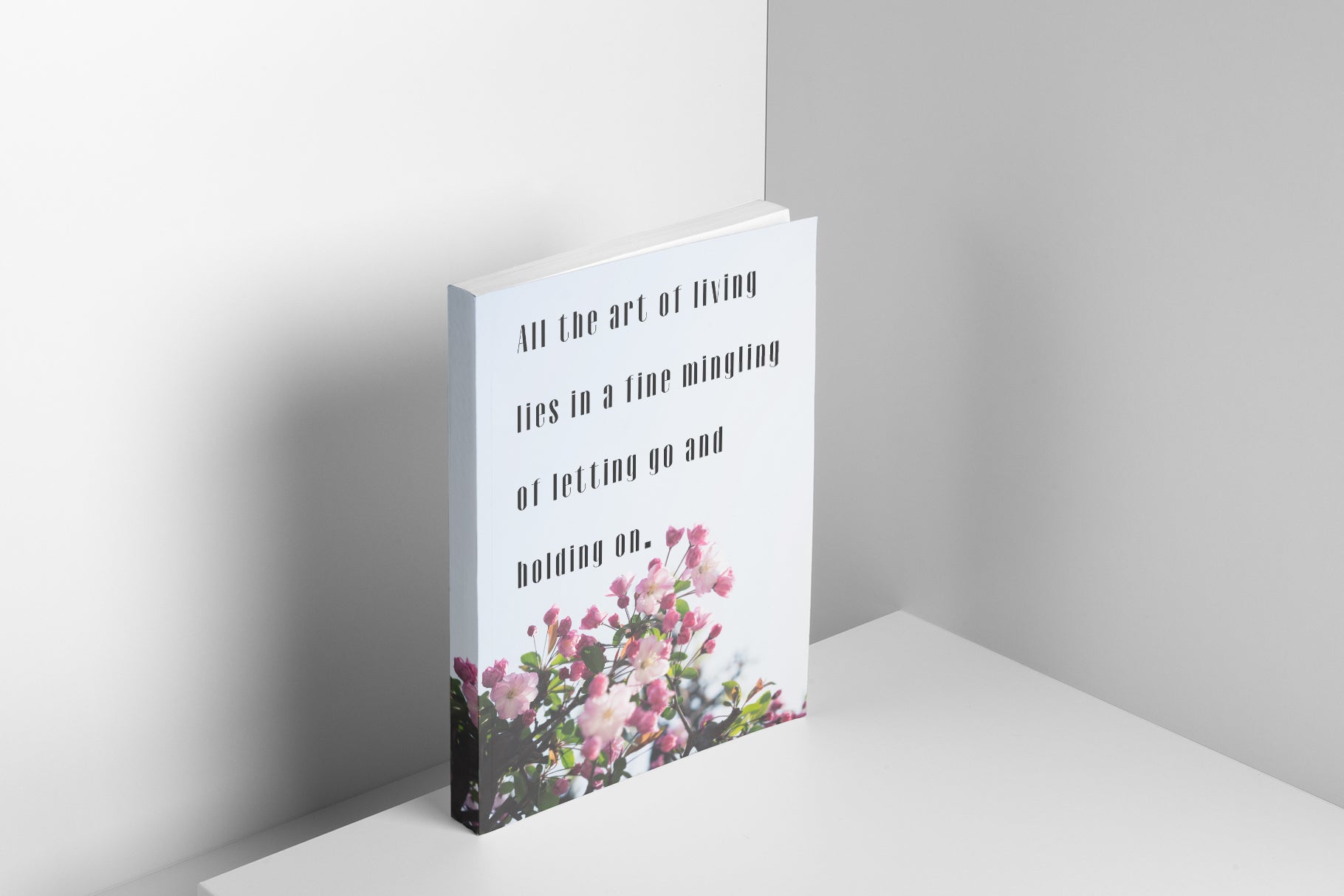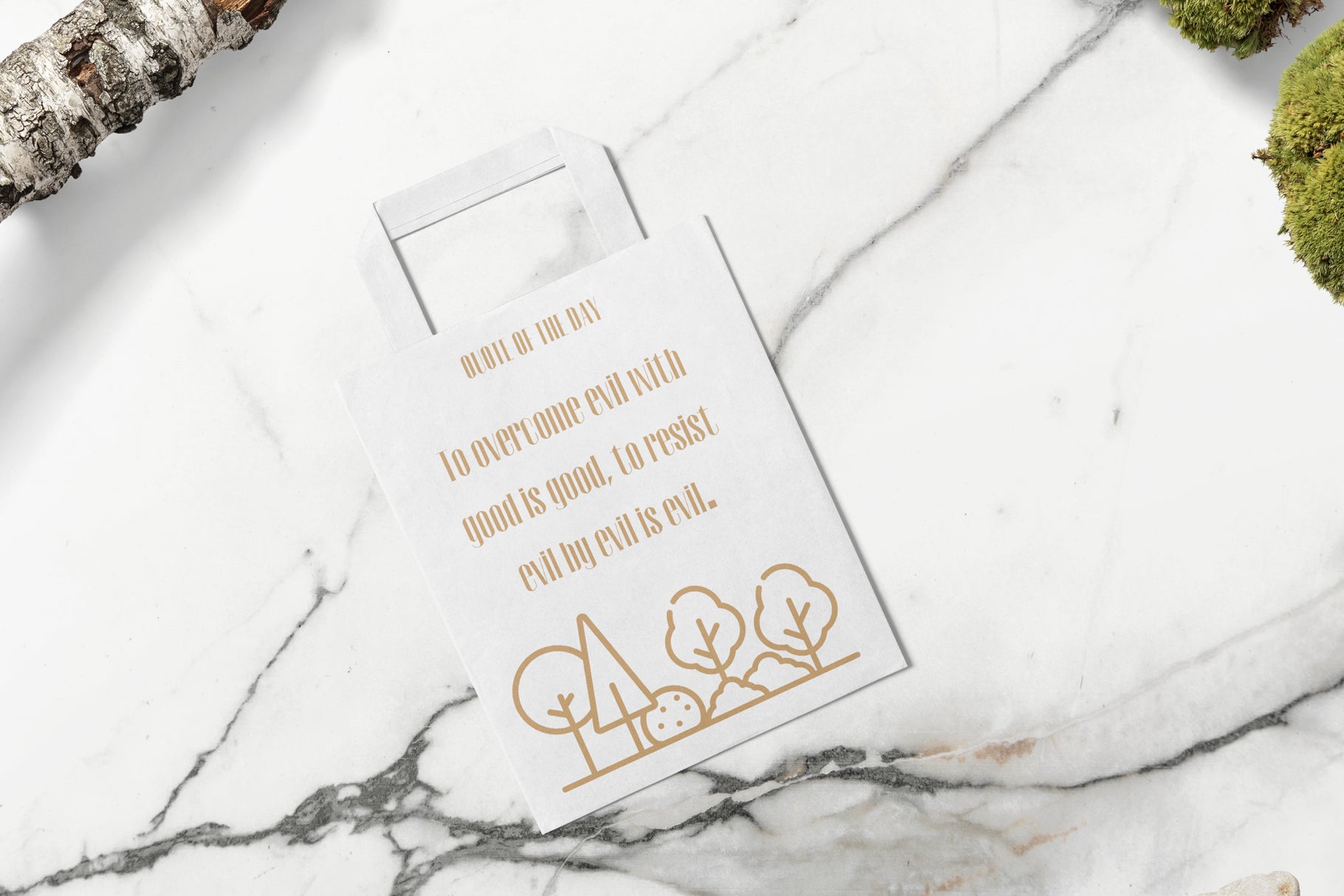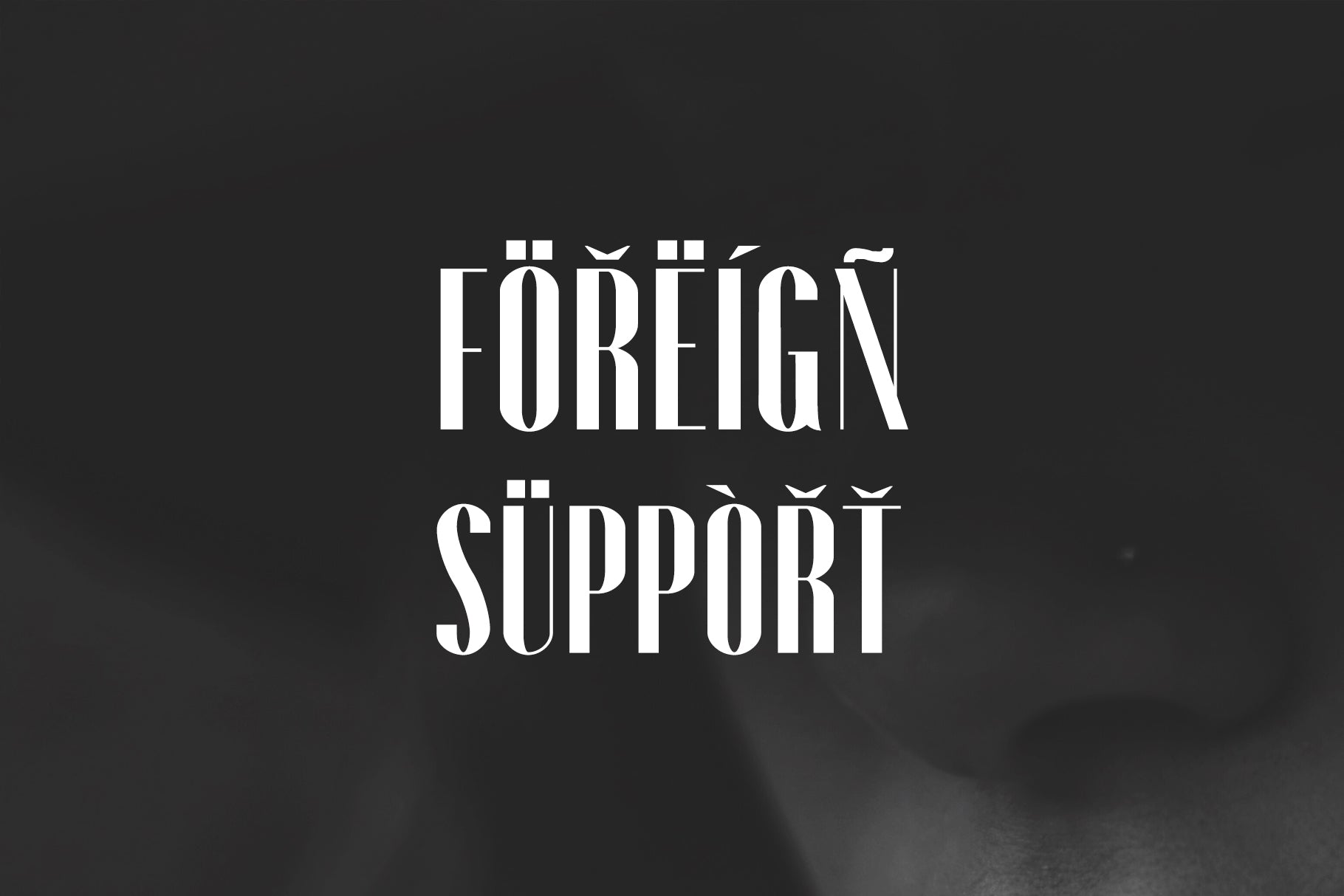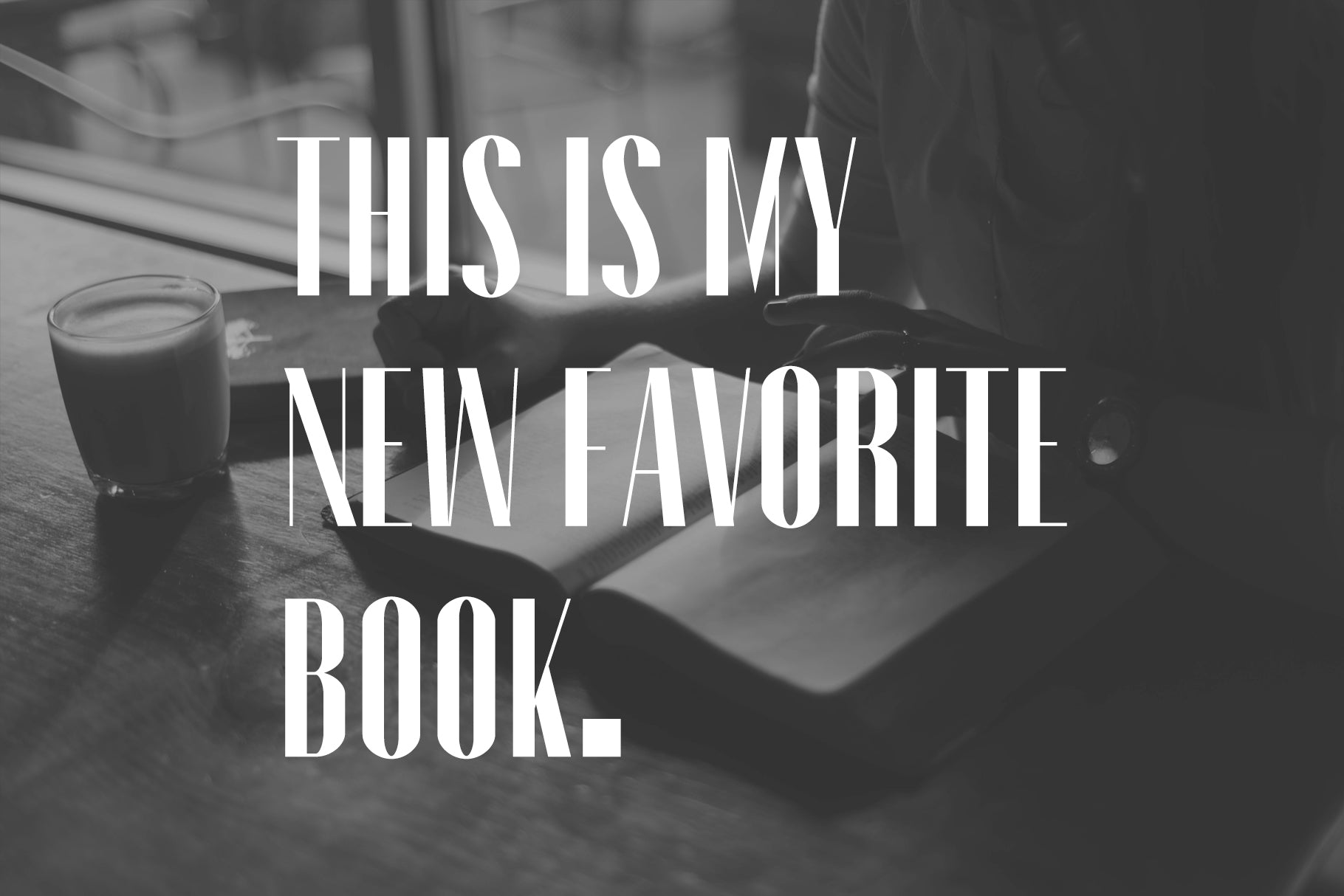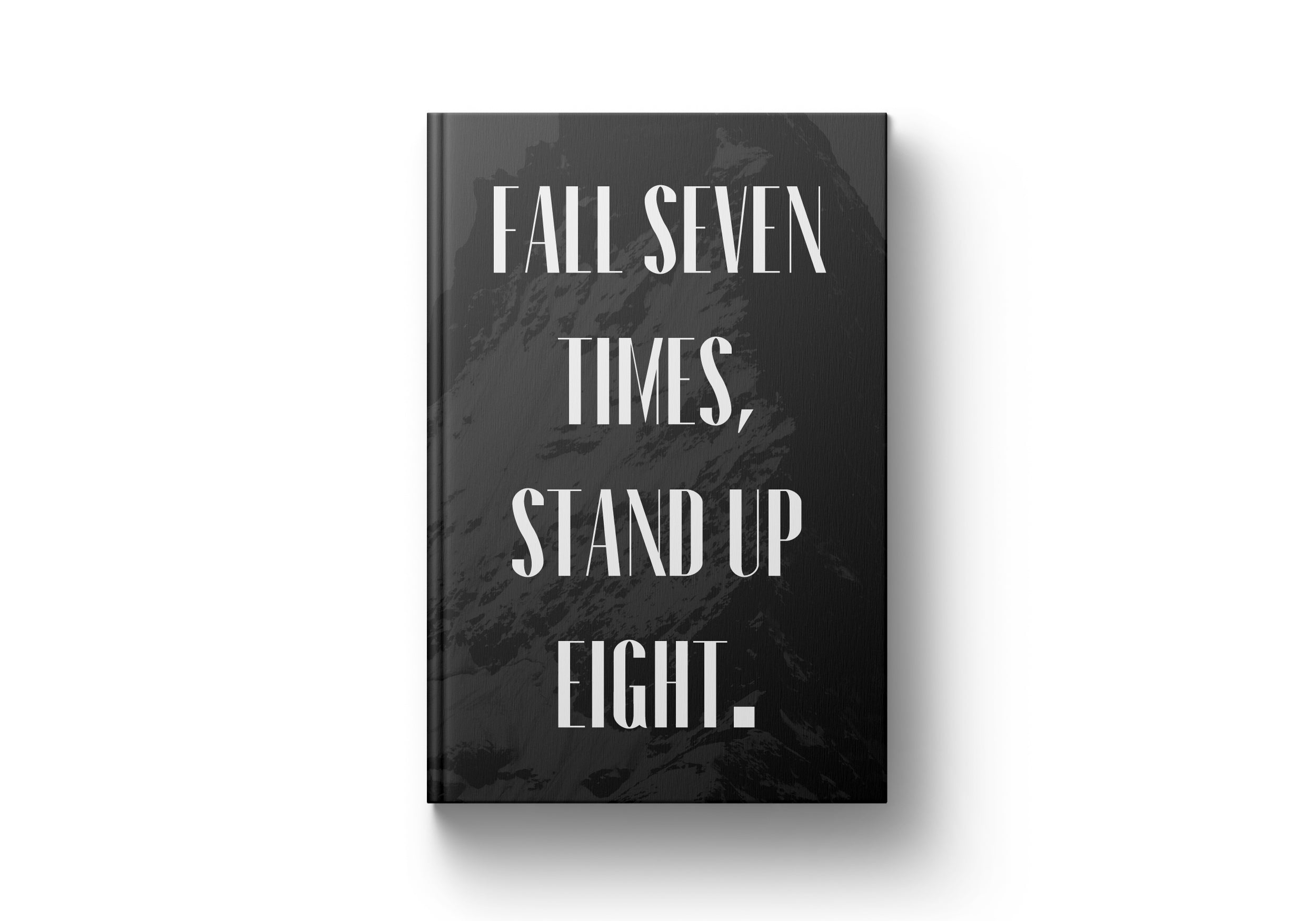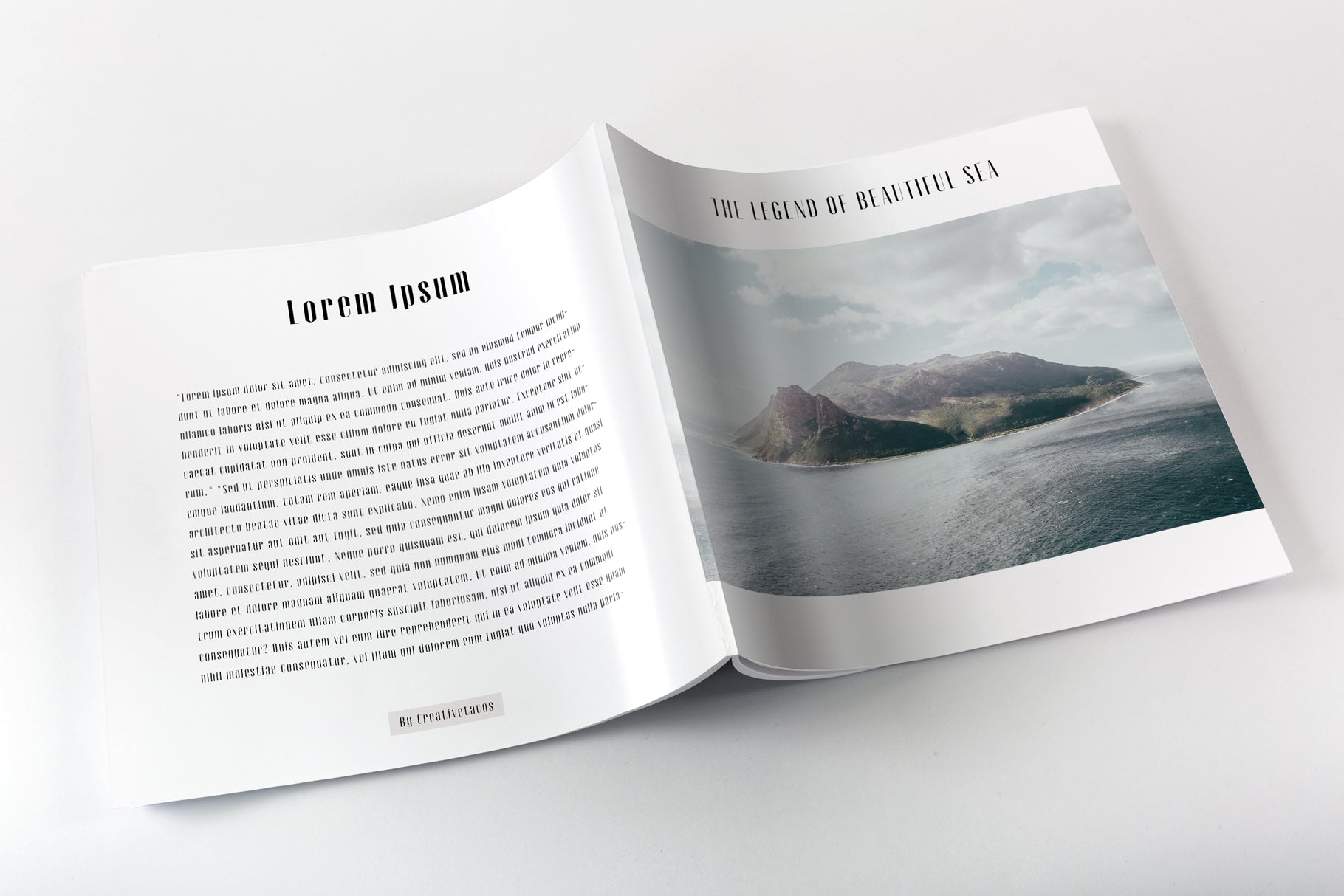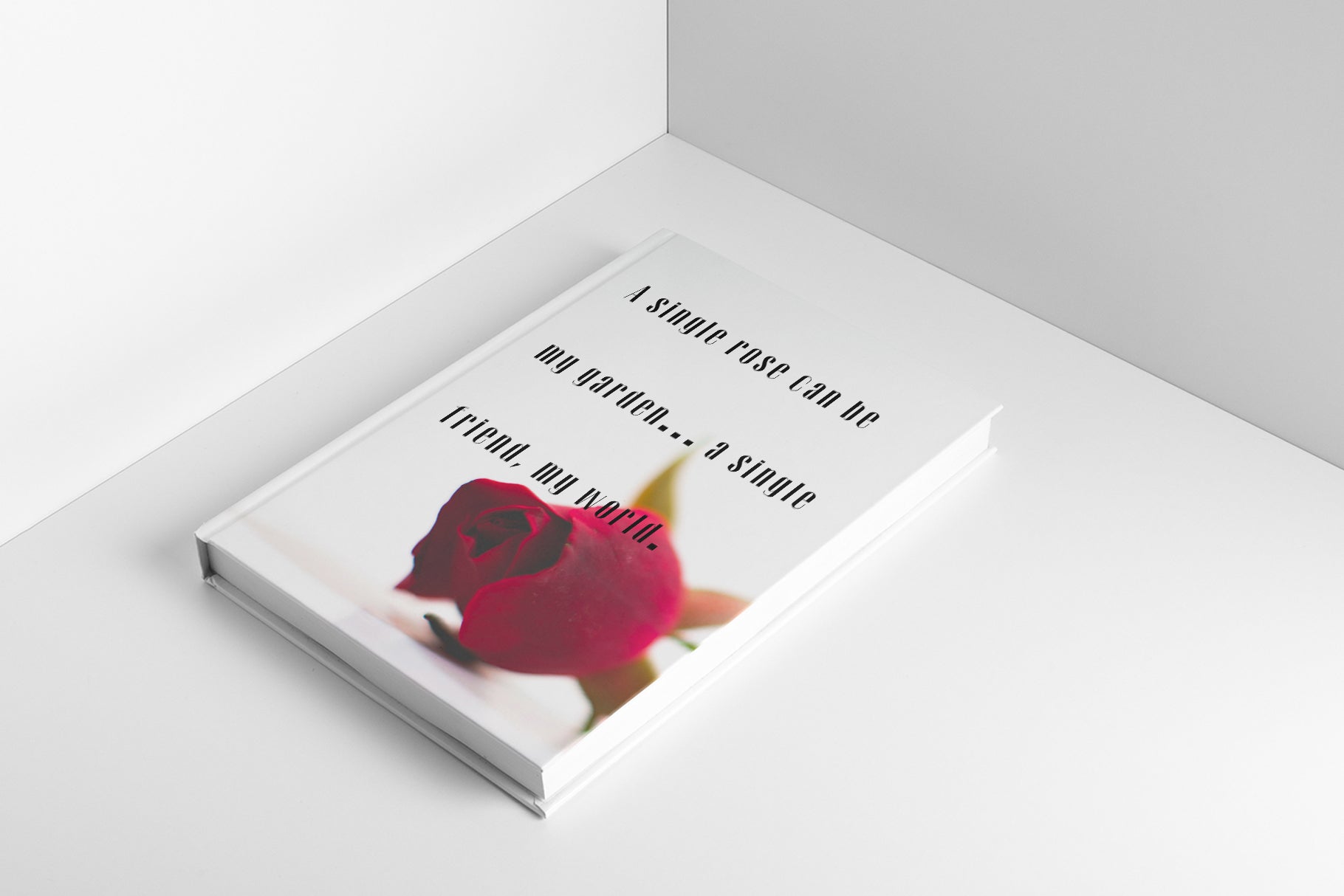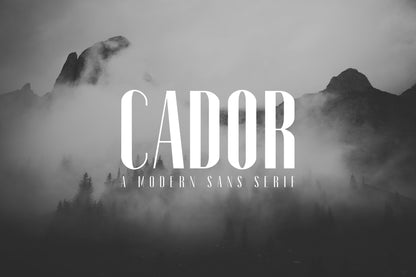
Cador is a classy and creative sleek lines sans serif typeface. It comes with 2 weights: Regular and Bold versions, which contains complete basic glyphs with multilingual support. Cador will be perfect for packaging, presentations, logo, headlines, lettering, posters, branding, quotes, titles, magazines headings, web layouts, advertising, invitations, packaging design, books, and nearly any creative design.
Included Features:
Font Weight: Regular and Bold
Uppercase Letters
Lowercase Letters
Numbers & Punctuation
Non English Characters ( Latin Supplement + Latin Extended A)